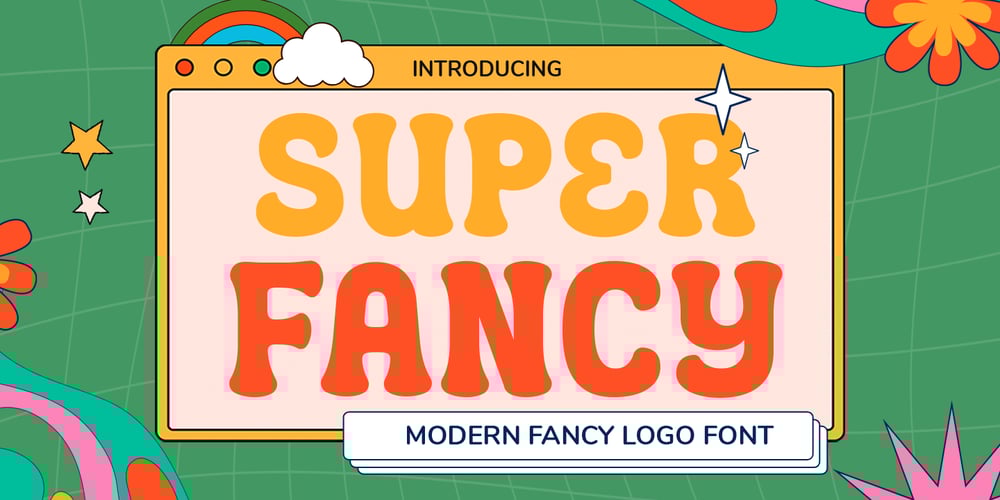
Super Fancy SS Font Family was designed by Zamroni Hamzah and published by Sensatype Studio. Super Fancy SS contains 2 styles and family package options. SUPER FANCY is a modern fancy logo font designed to bring a touch of elegance and flair to your branding projects. Inspired by contemporary trends and high-end aesthetics, SUPER FANCY combines sleek lines with intricate details to create a unique and stylish look. This versatile font is perfect for logos, branding materials, and any project that requires a sophisticated and modern touch.The Story Behind SUPER FANCYThe creation of SUPER FANCY was inspired by the desire to blend modern design with a touch of fanciness. Drawing inspiration from contemporary fashion and art, SUPER FANCY captures the essence of elegance and creativity. Its intricate details and stylish curves make it perfect for designers looking to add a unique flair to their projects.Font Features: Uppercase and Lowercase Punctuation, Number, and Symbol Include 4 format already Multilingual Support Opentype Features Best For: Logo design Branding materials Fashion projects Creative product packaging Stylish website headers Elevate your design projects with SUPER FANCY, the modern fancy logo font that brings elegance and flair to your brand.